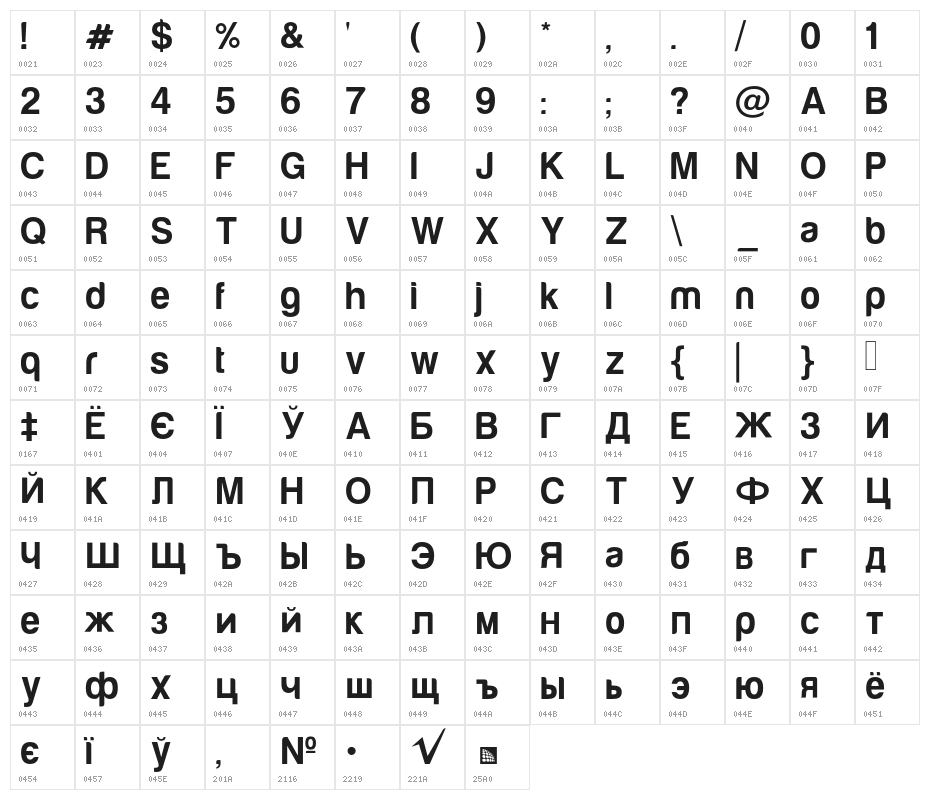
Harabara Mais Demo Font
Harabara Mais Demo Description
This font features a clean and modern sans-serif style with smooth, rounded edges and a uniform stroke width. The uppercase and lowercase letters are well-proportioned, offering a harmonious appearance. The numerals are clear and easily distinguishable, making them suitable for a variety of applications. The special characters are designed to complement the overall aesthetic, maintaining the font's sleek and contemporary feel. Its simplicity and readability make it versatile for both digital and print media.
| Proposed Projects | Ideal for branding, web design, advertising, and editorial layouts. |